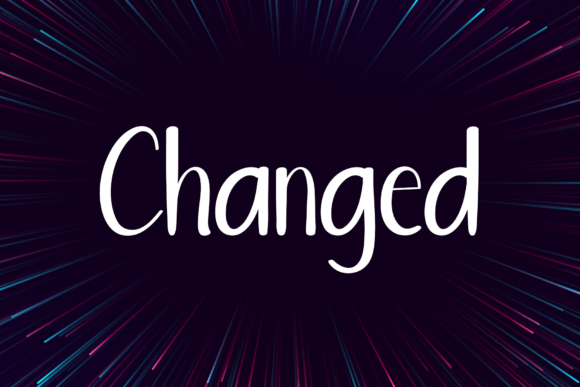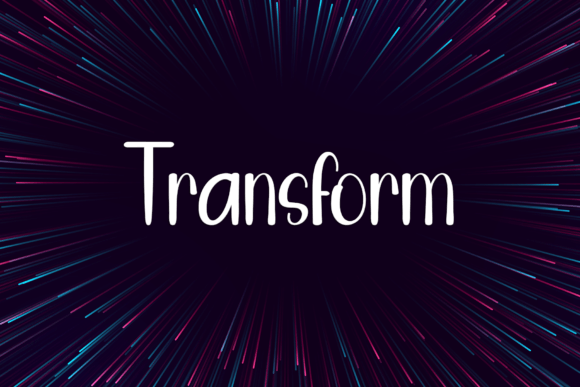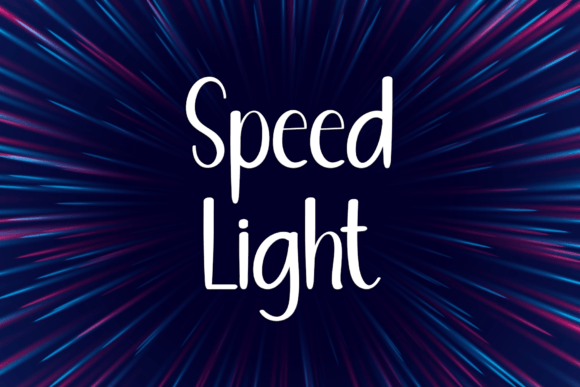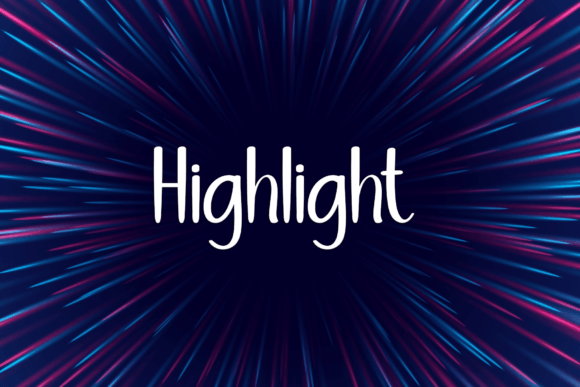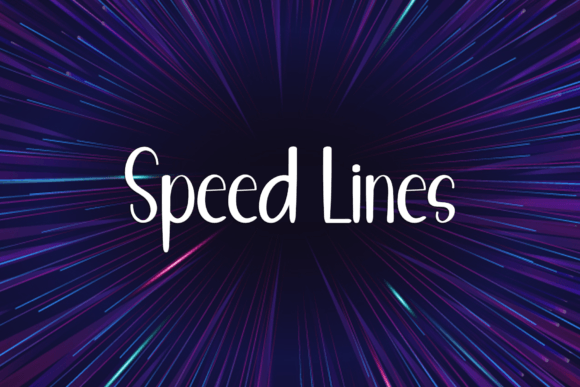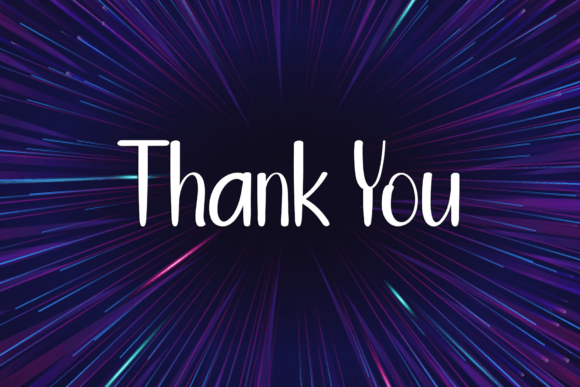
Introduction to Laser Vintage Font
Laser Vintage is a cool, simple, and playful handwritten font.
Incredibly versatile, this font fits a wide pool of designs, elevating them to the highest levels Add this font to your favorite creative ideas, and notice how it makes them come alive.
Key Features of Laser Vintage Font
Why Choose Laser Vintage Font?
Laser Vintage Font offers exceptional quality and versatility, making it a valuable addition to your design toolkit. Whether you’re creating for personal projects or commercial use, Laser Vintage Font delivers professional results.